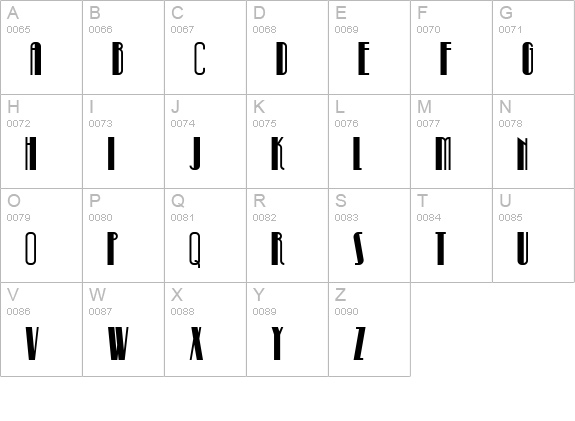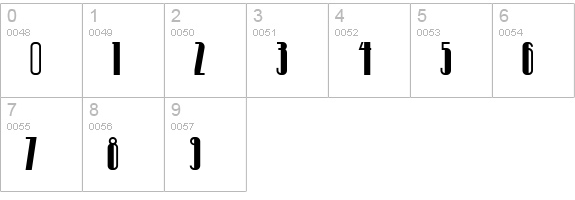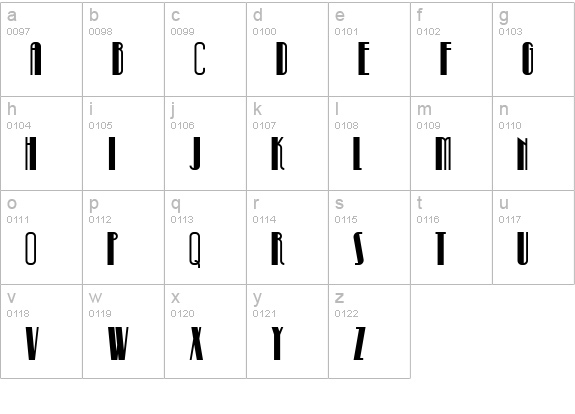
PinballWhizNF font is a mesmerizing display typeface that exudes a sense of excitement and nostalgia. With its bold and dynamic letterforms, this font captures the essence of a classic pinball machine, bringing all the thrills and adrenaline of the game to your designs. Designed with meticulous attention to detail, PinballWhizNF font features intricate and playful shapes that perfectly mimic the vibrant lights and energetic movement of the pinball game. Each letter is carefully crafted to evoke the feeling of flipping the ball, hitting targets, and racking up high scores. This font is not only visually captivating but also highly versatile. It can be used to add a touch of retro charm to various design projects, including posters, logos, branding materials, and more. Whether you're creating a vintage-themed event flyer or a logo for a gaming company, PinballWhizNF font will make your designs stand out and captivate audiences. The best part? PinballWhizNF font is available for free! You can easily download this font at FontsMarket.com, where it is freely available for personal and commercial use. So, unleash your creativity and bring the excitement of pinball into your designs with PinballWhizNF font. Download it now and let the games begin!